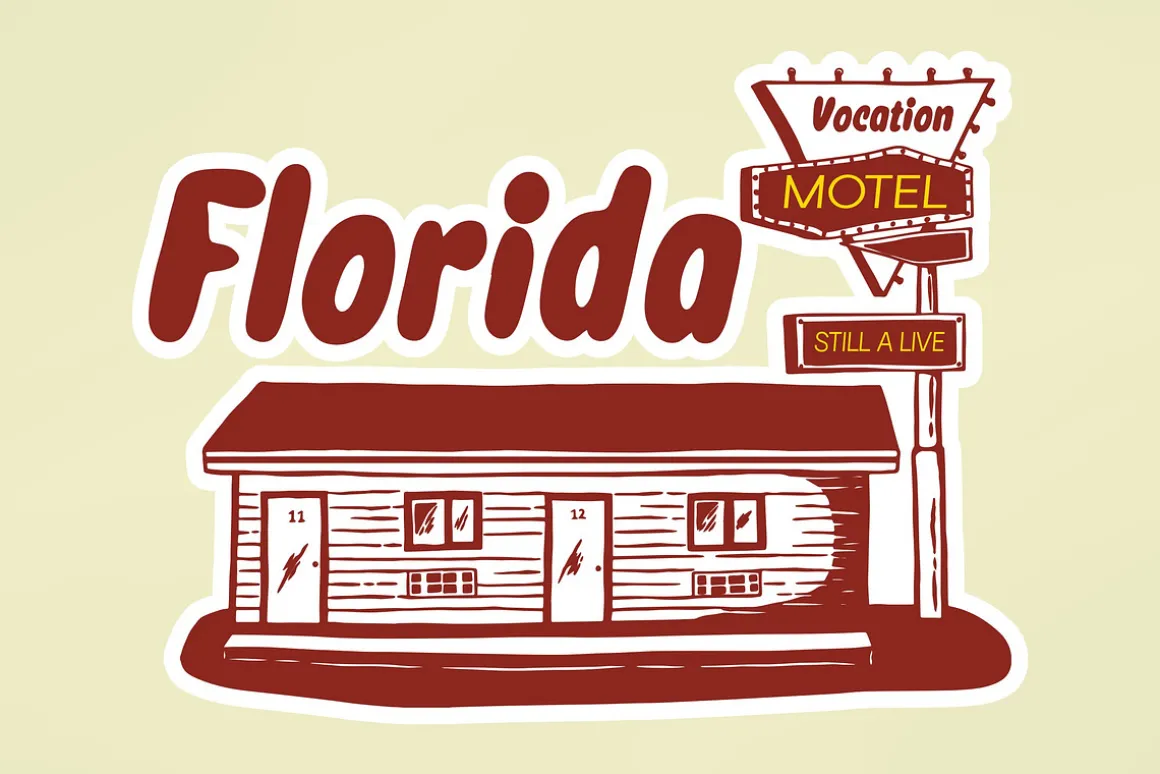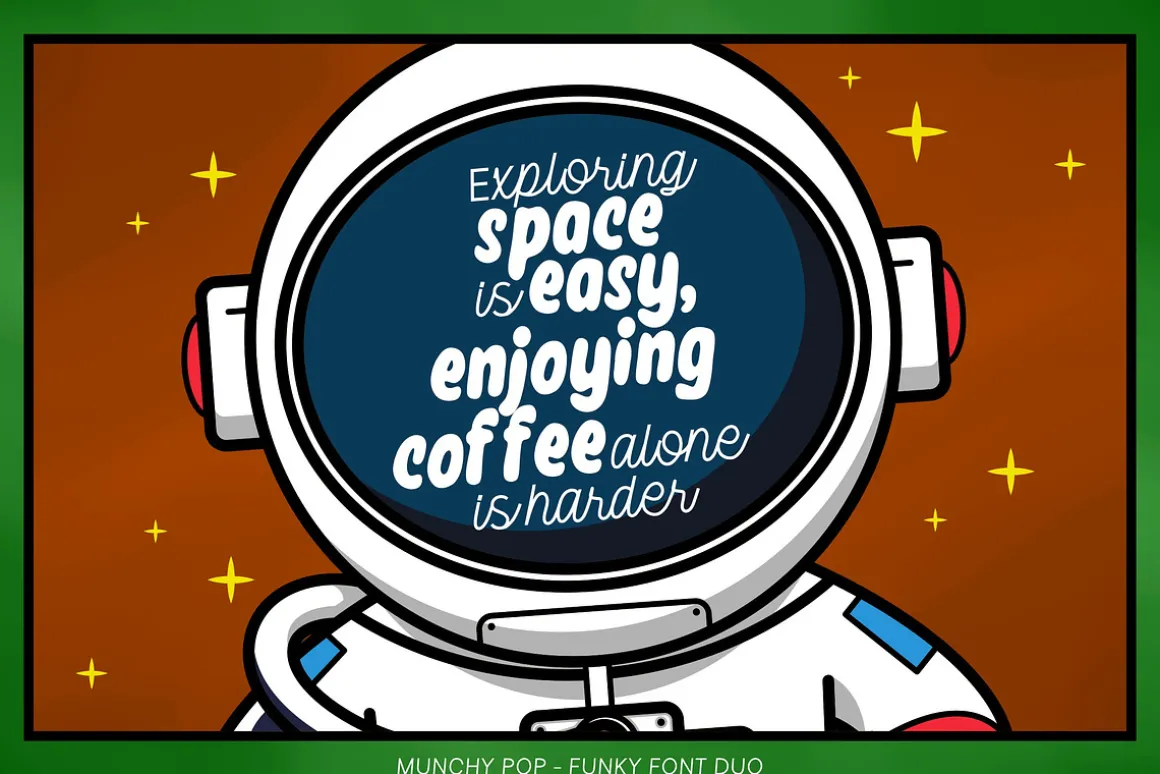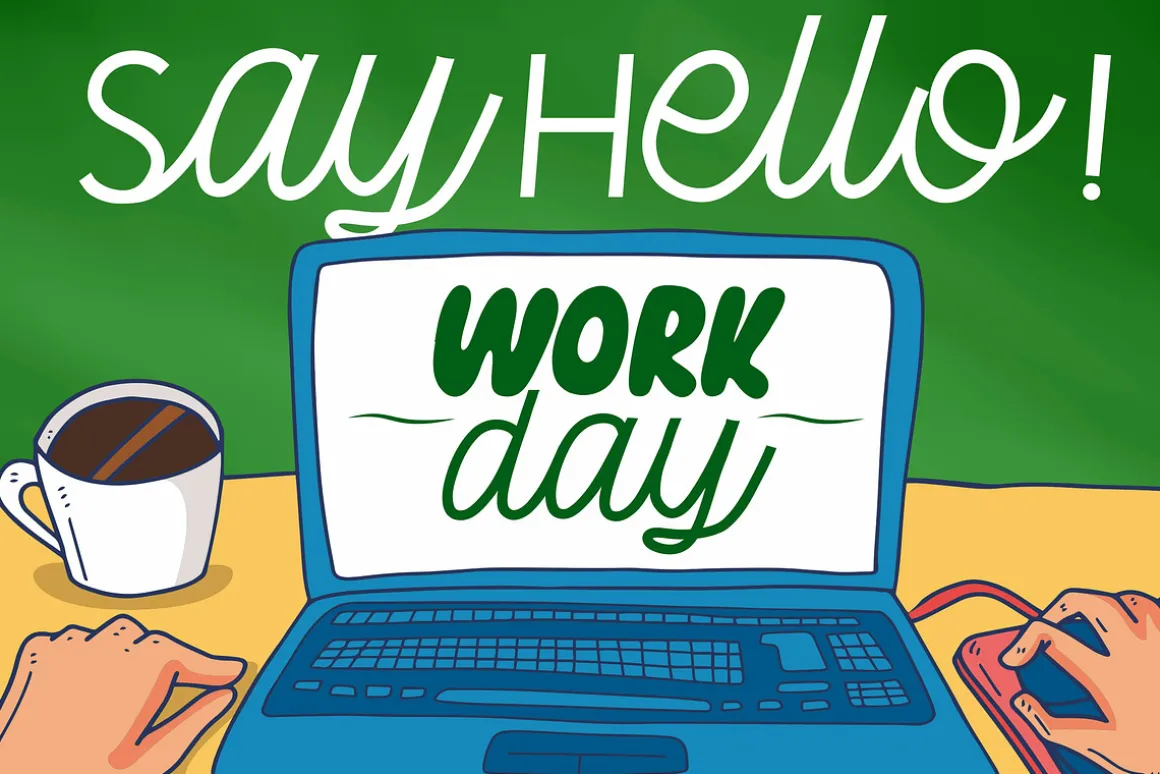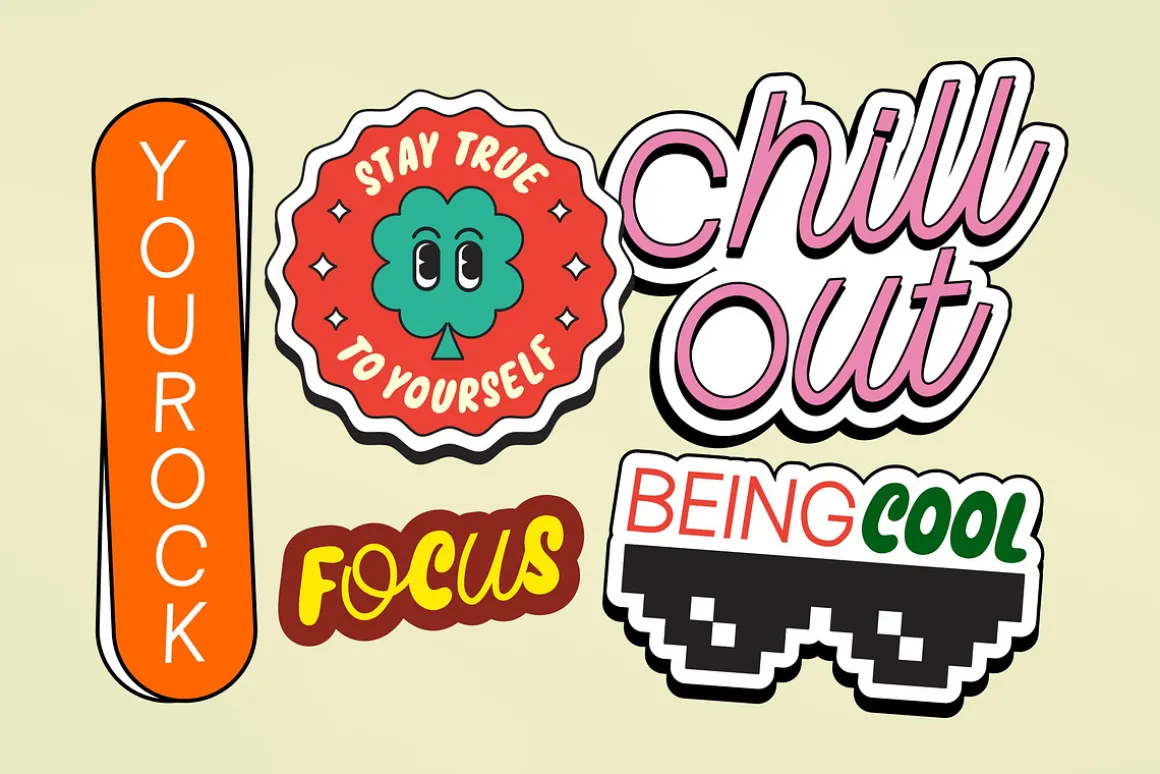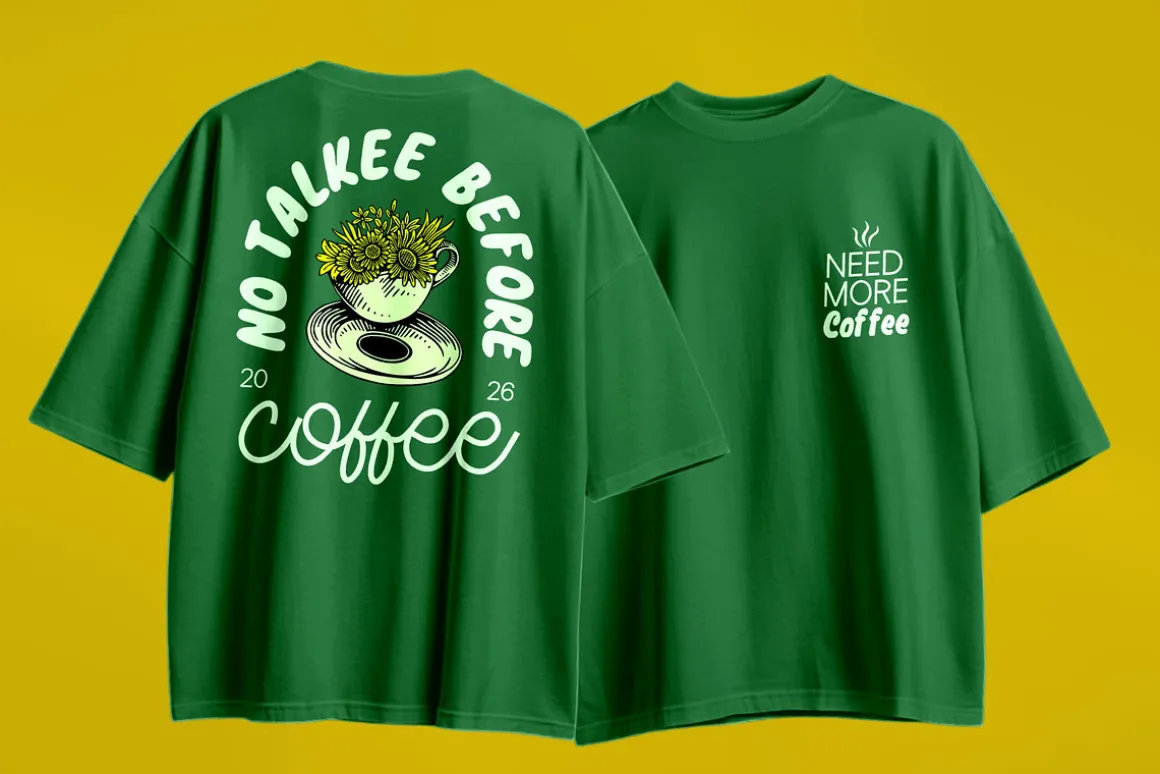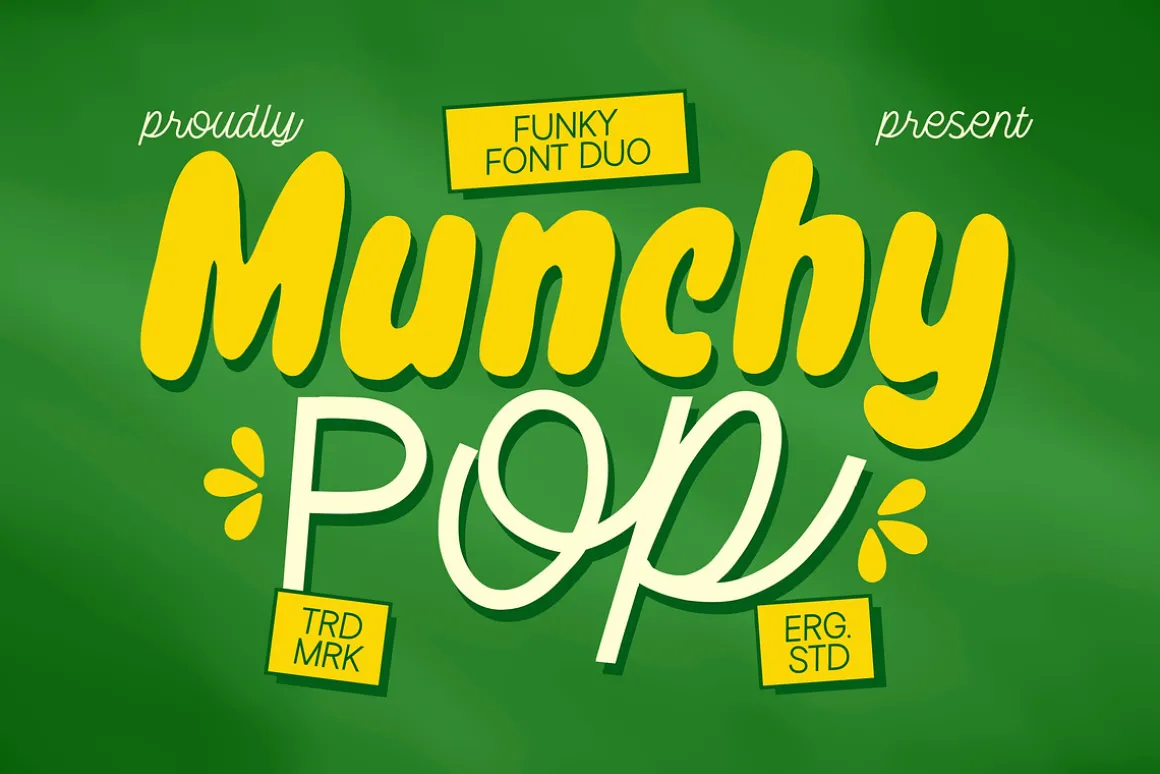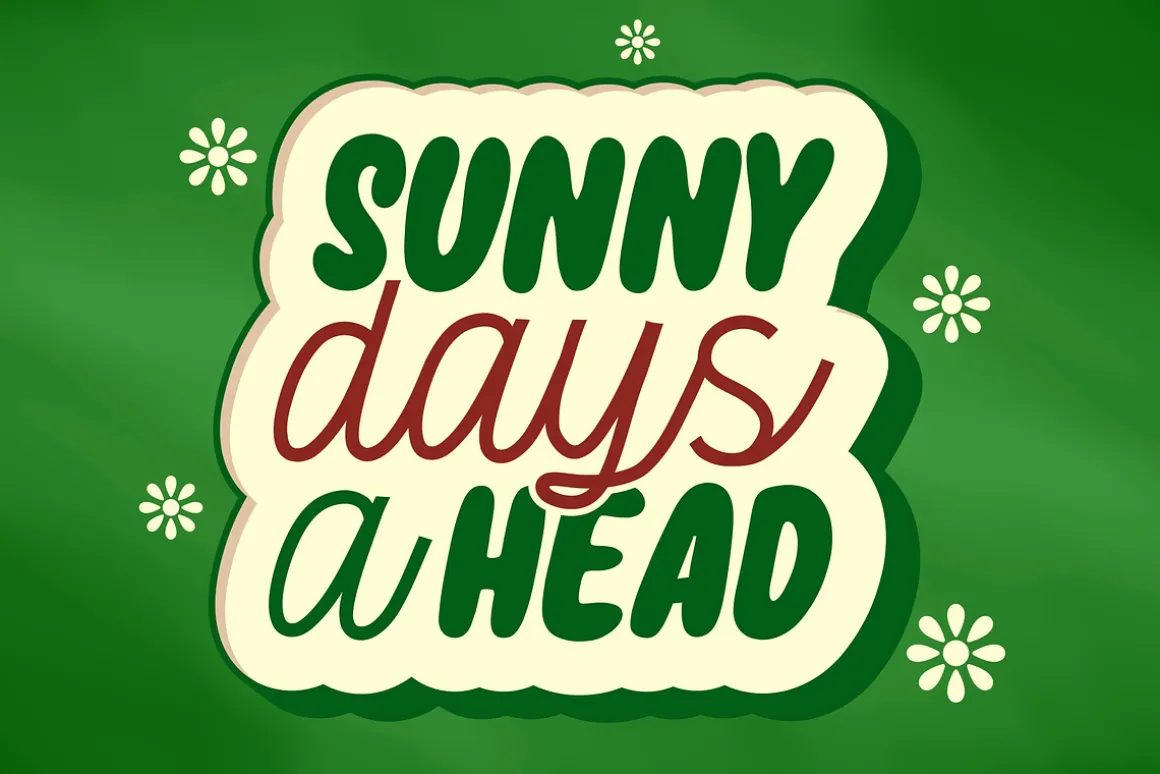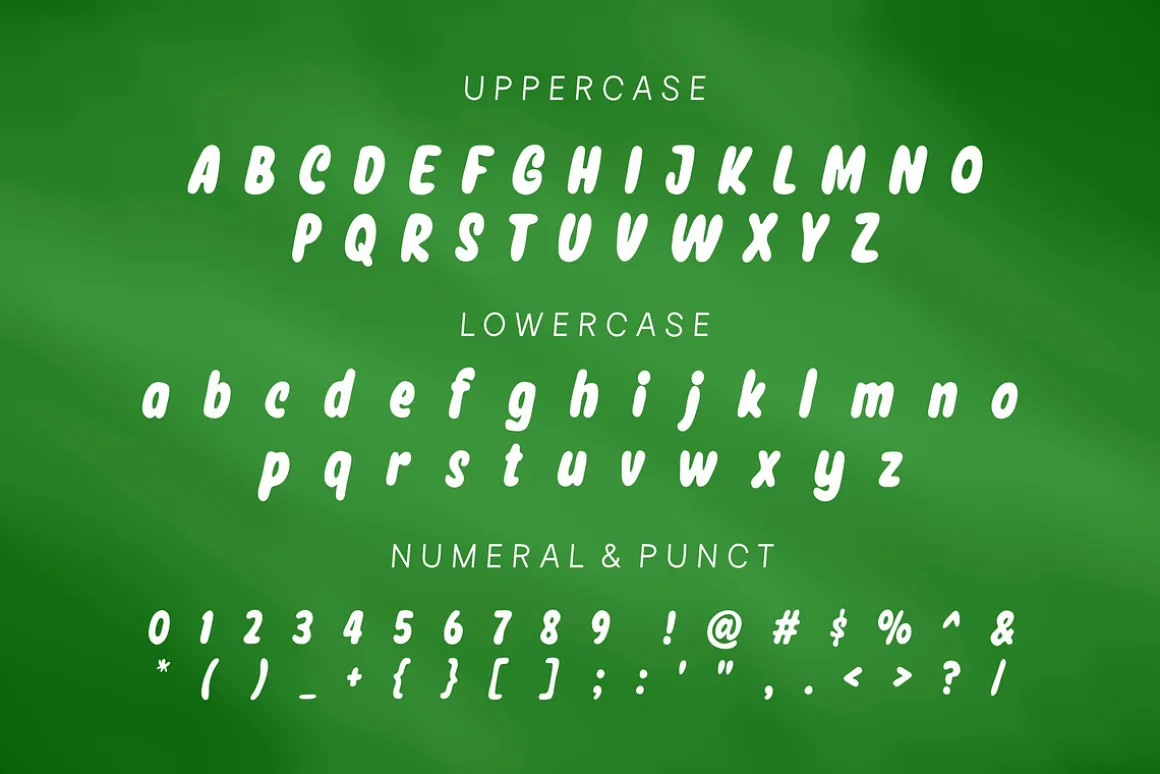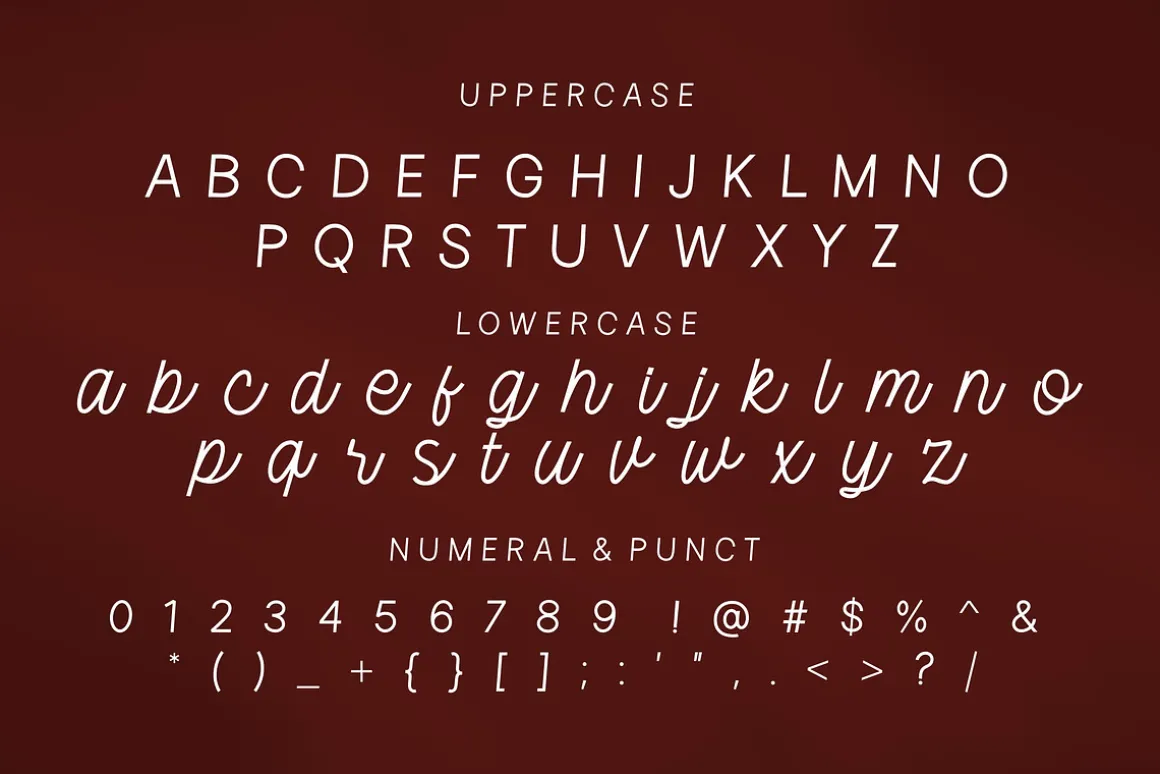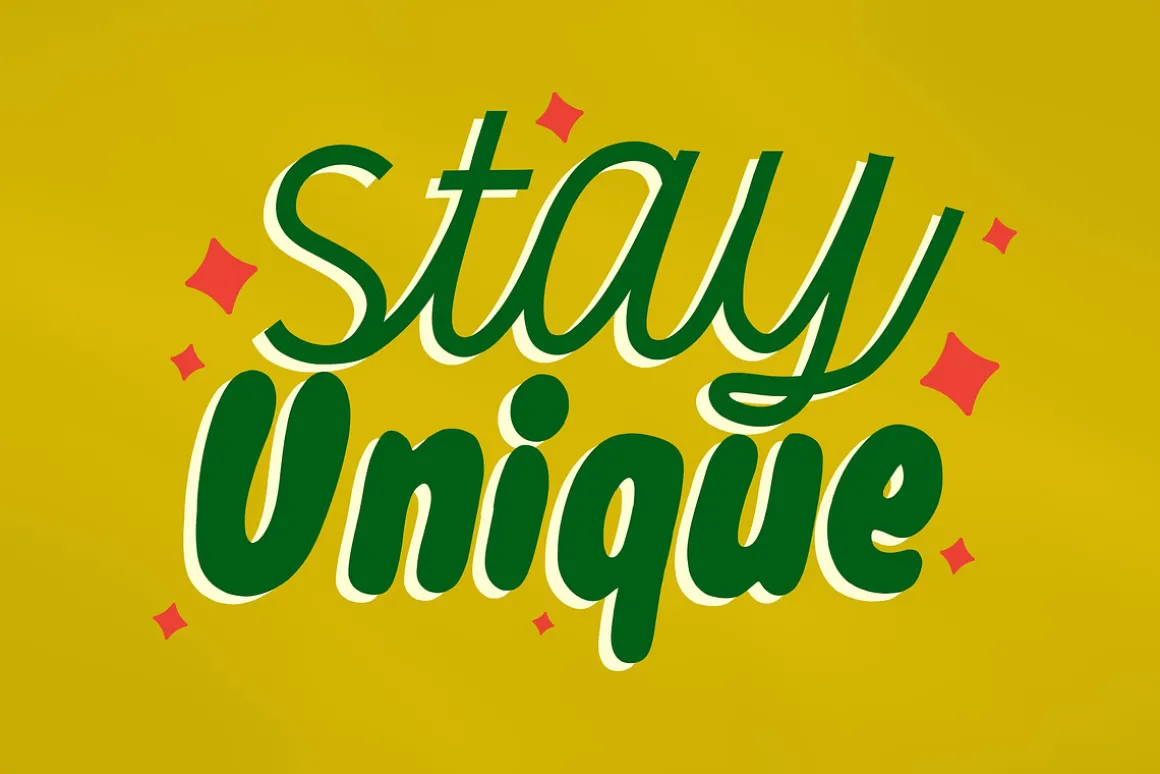
Munchy Pop is a playful and energetic font duo that brings together bold personality and smooth elegance in one vibrant package. Designed to stand out, this duo combines a chunky, eye-catching display style with a flowing script that adds contrast and charm.
Munchy Pop is ideal for branding, food packaging, posters, kids projects, social media, and any creative work that needs a fun and cheerful touch.